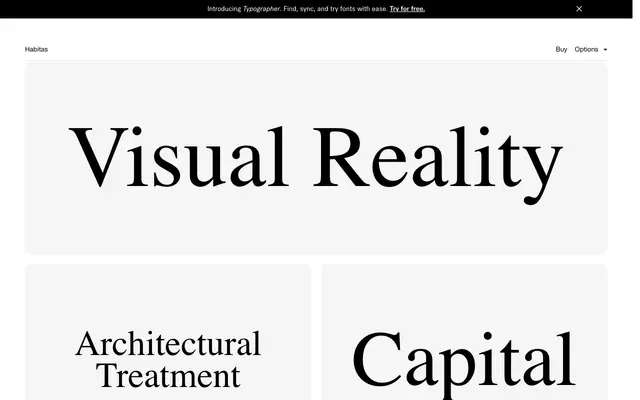
A sans serif family of 20 styles whose forms draw from Roman and Greek architectural severity, most distinctively expressed through a column-shaped lowercase 'i' carried into its unusual upright-bar italics.
The column-like lowercase 'i' acts as the structural motif for the whole family, echoed across other characters and most notably in the italic, where horizontal bars remain upright rather than following the angle of inclination. Ten weights run from Hairline to Super, each with a matching italic, giving considerable range for editorial or branding work. Language support covers major Western European Latin scripts, with a thorough set of OpenType features including stylistic alternates for several key characters.
A sans serif with geometric and classical influences, drawing from Roman and Greek architectural forms rather than a purely industrial or humanist tradition. The column-like lowercase 'i' and upright italic bars give it a distinctive structural character.